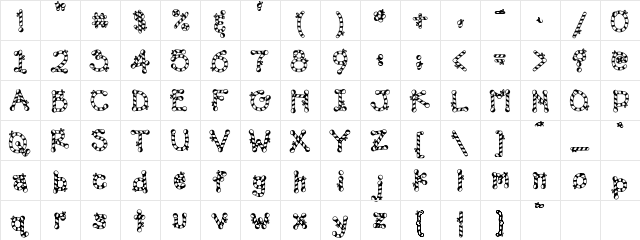
DJ Candy Cane Regular
Design Context for DJ Candy Cane Typeface
DJ Candy Cane is a composed and adaptable typeface that performs quietly and consistently across a wide range of design contexts.